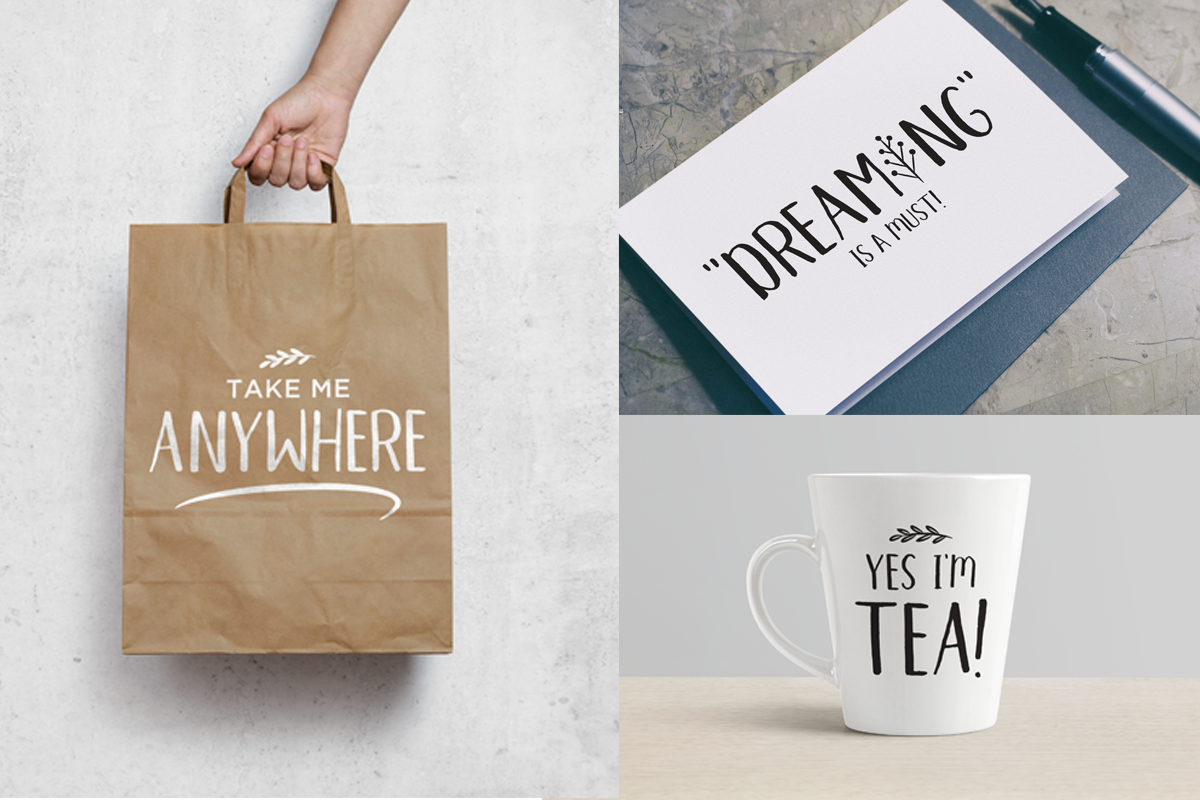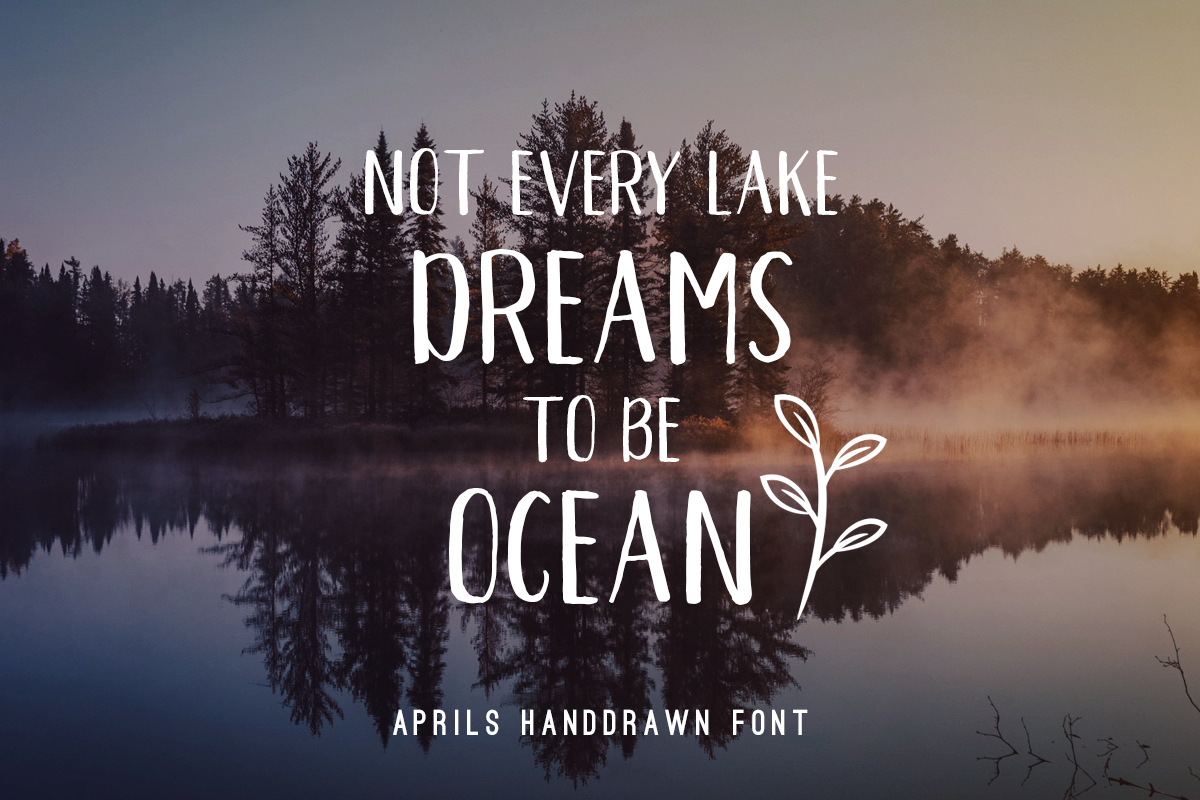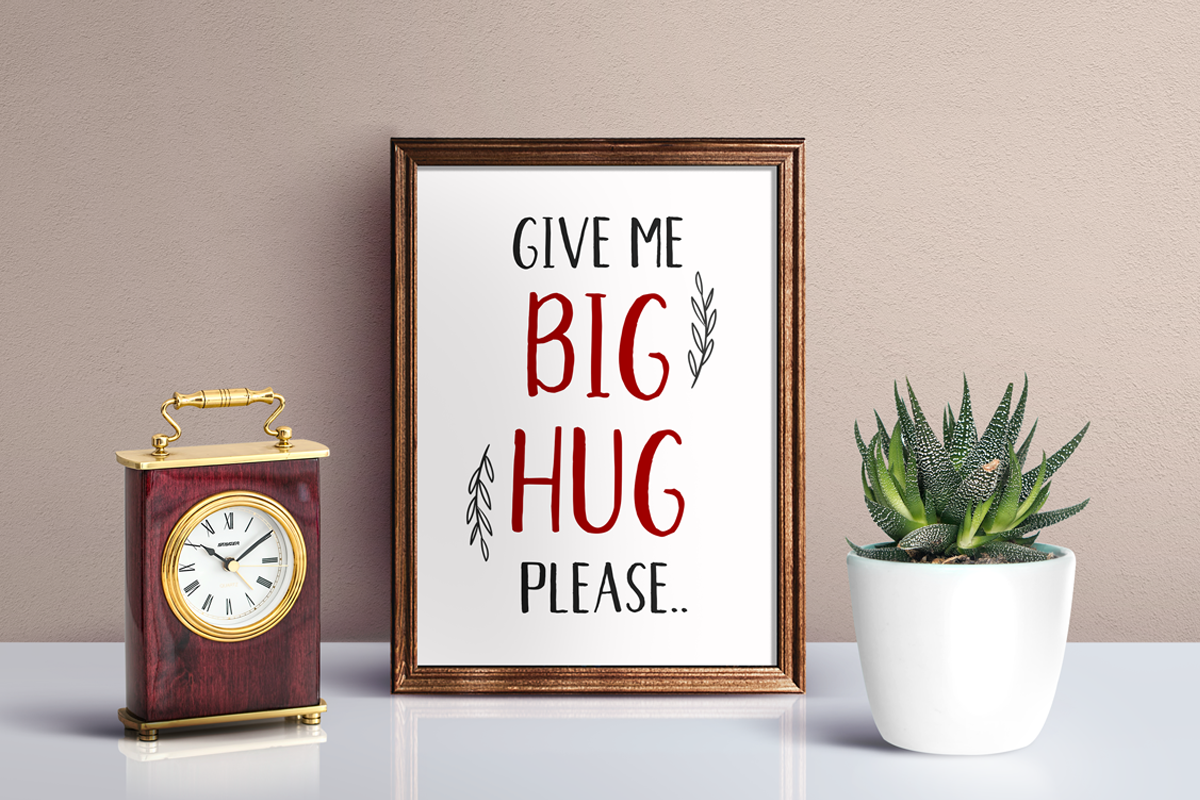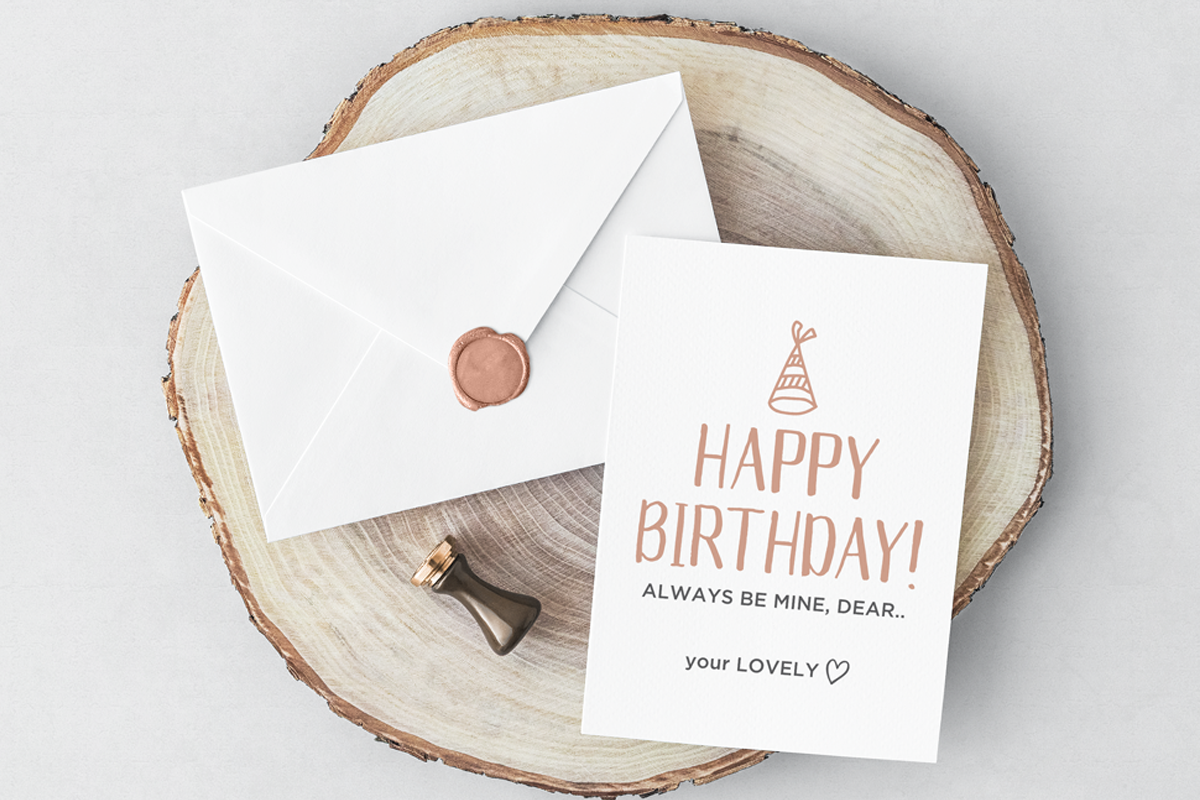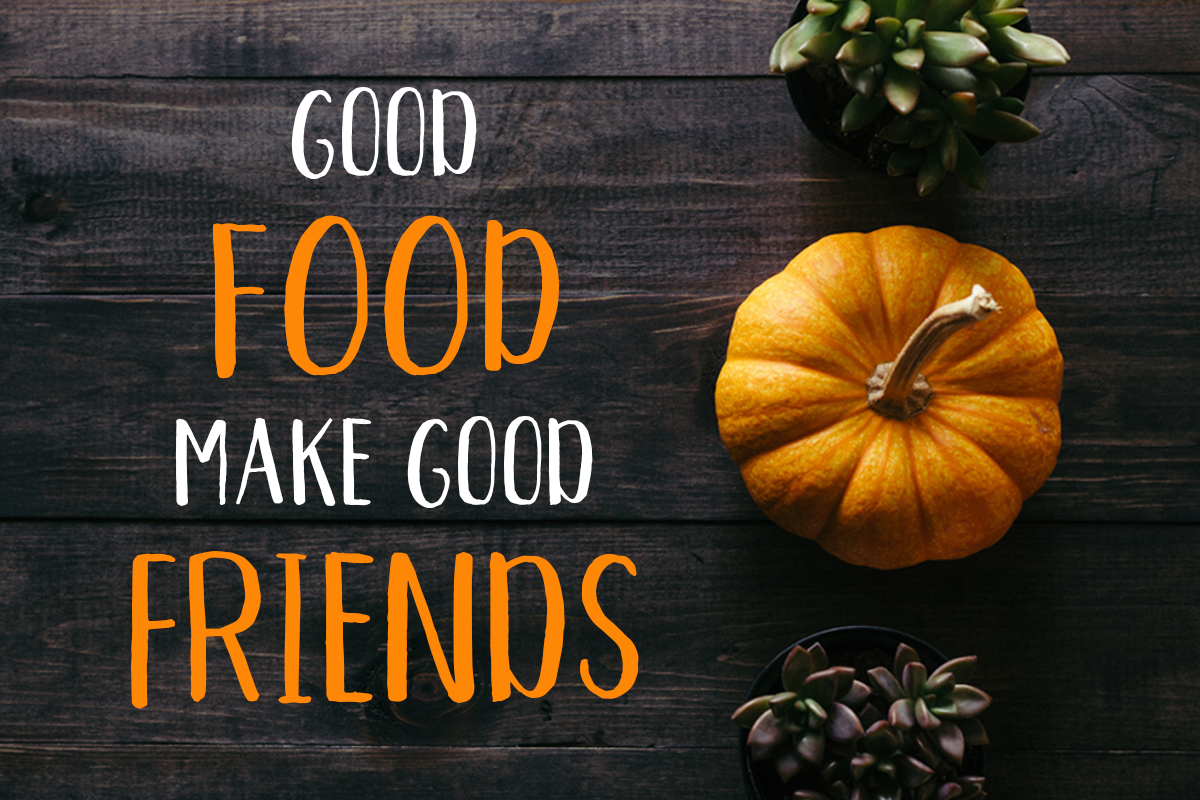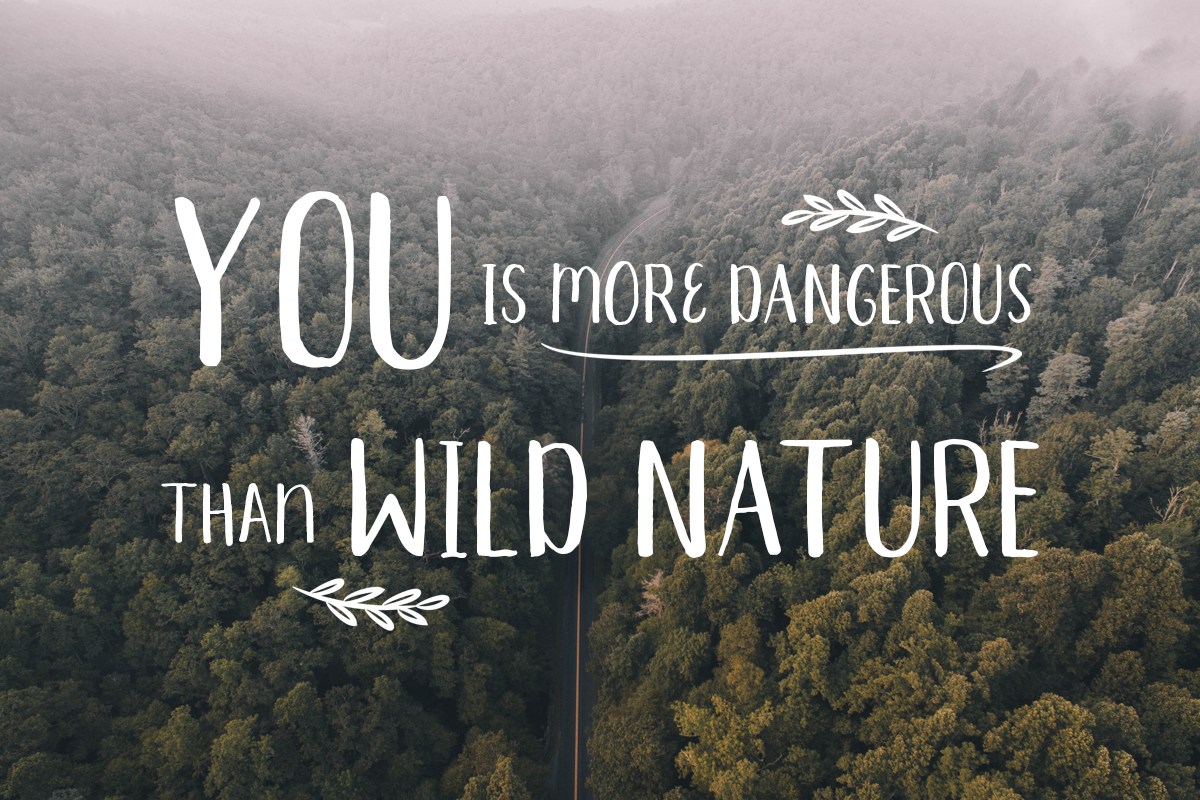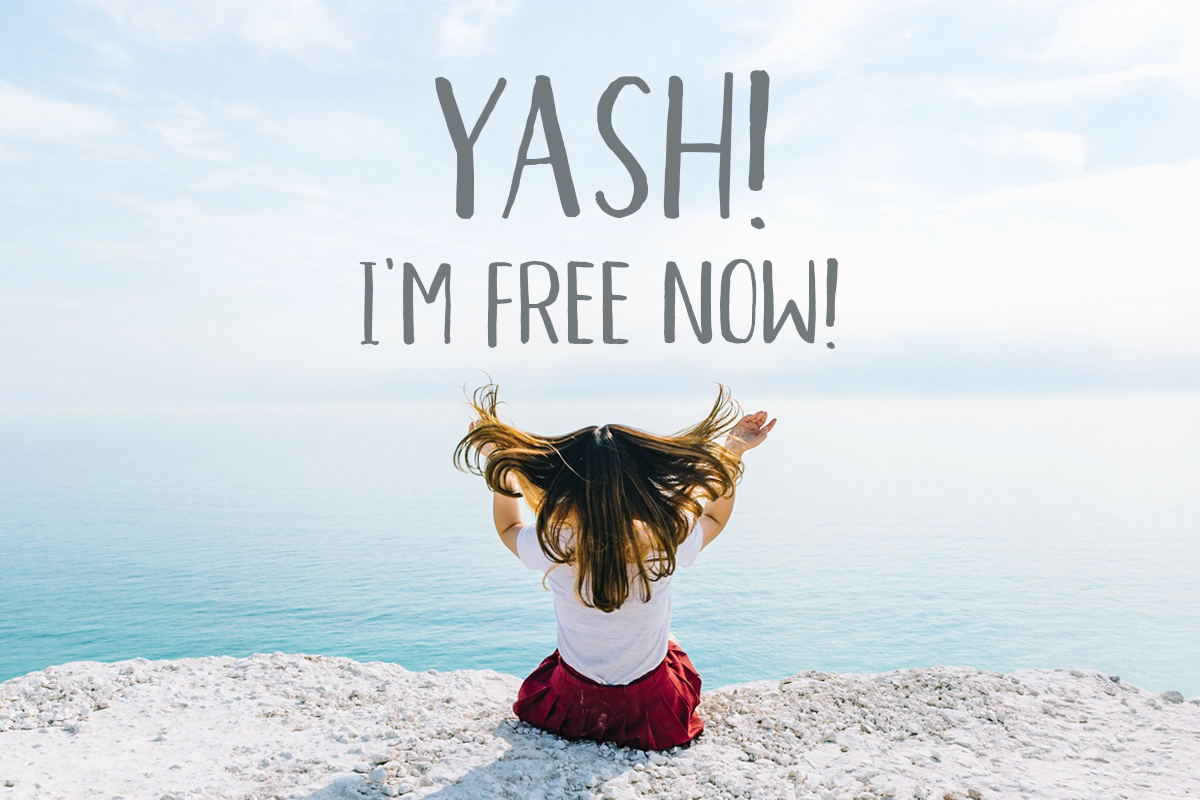
Aprils Sans Handdrawn Font
Introducing! Aprils Handdrawn Font
Aprils is a super fun, hand-drawn font that comes with Extras leaf ornament and swashes so that your designs can really get that "hand-drawn" feel.
Aprils is unique font, which all letters in all caps, in lowercase letters i make a cute version. This font support multilanguage:)
Aprils Sans Handdrawn Font by Dharmas Foundry fits naturally into Branding, posters, packaging, typography.